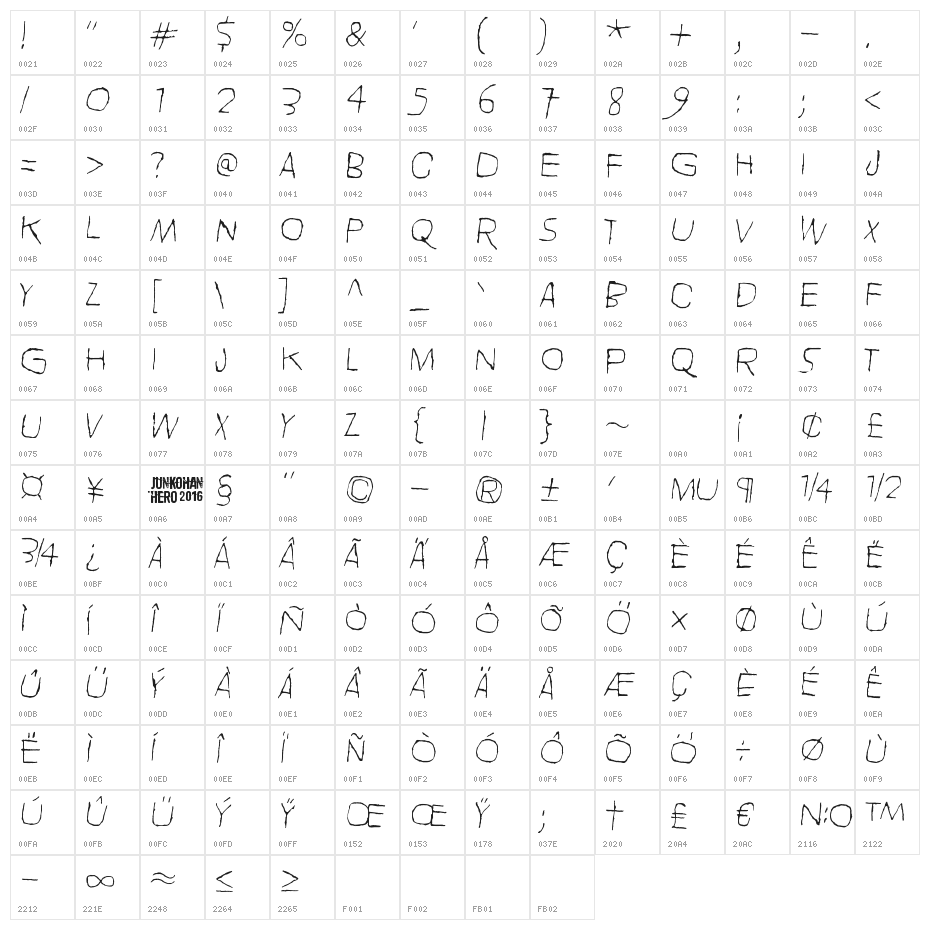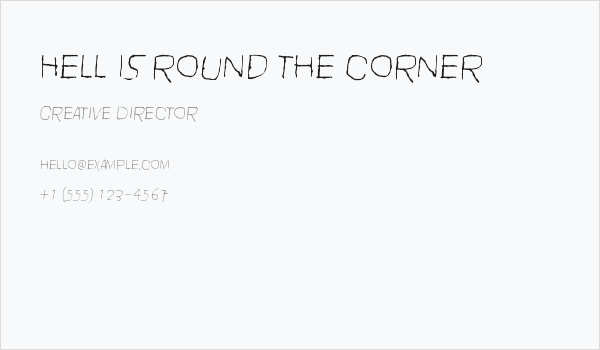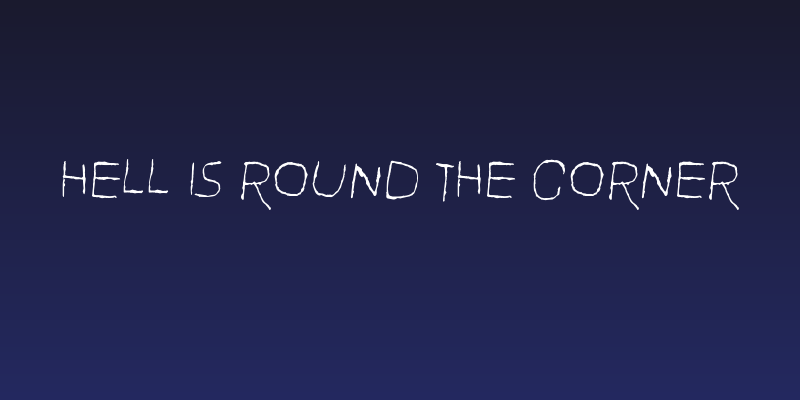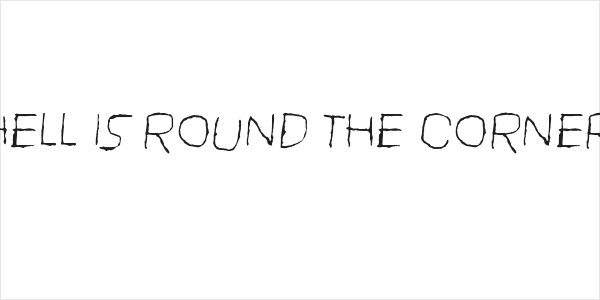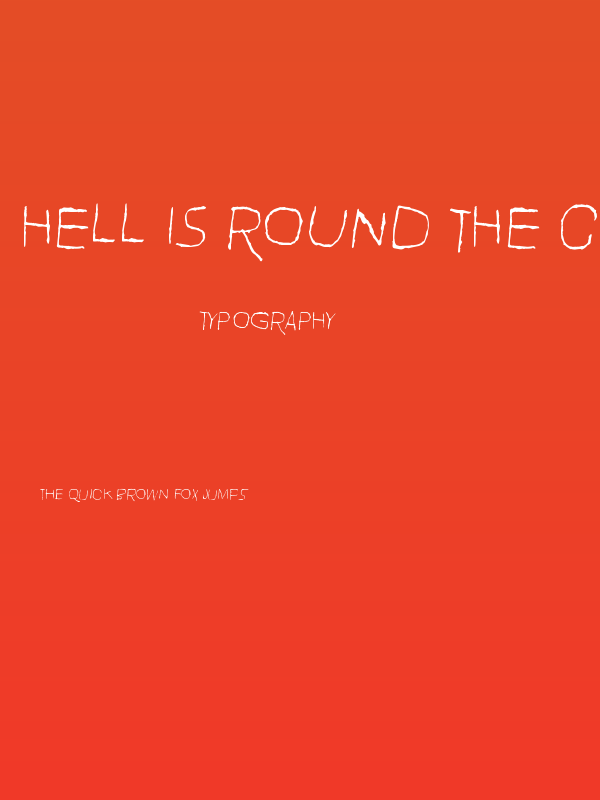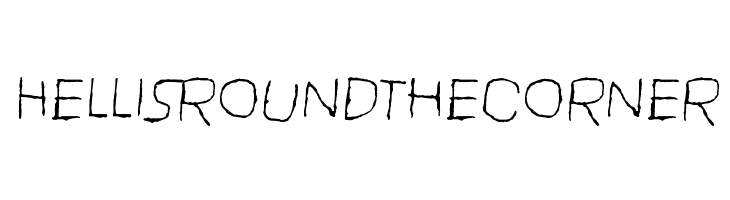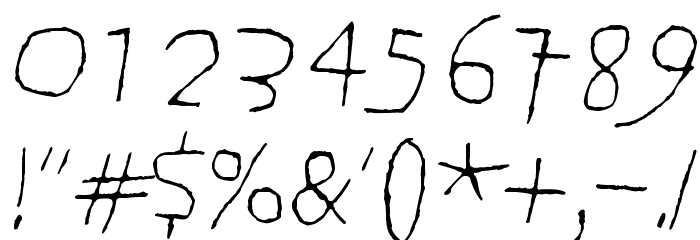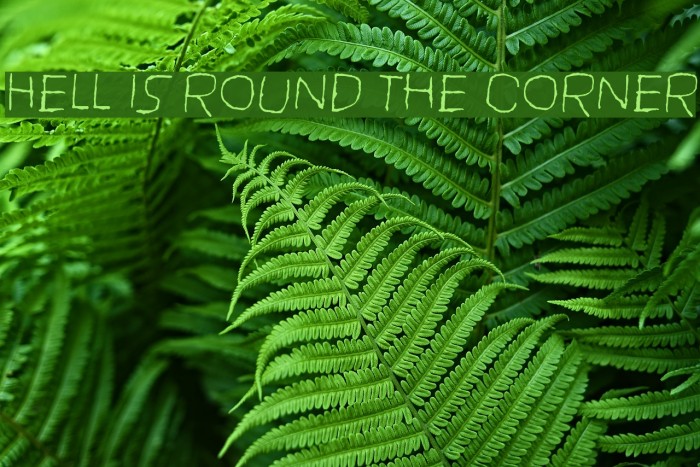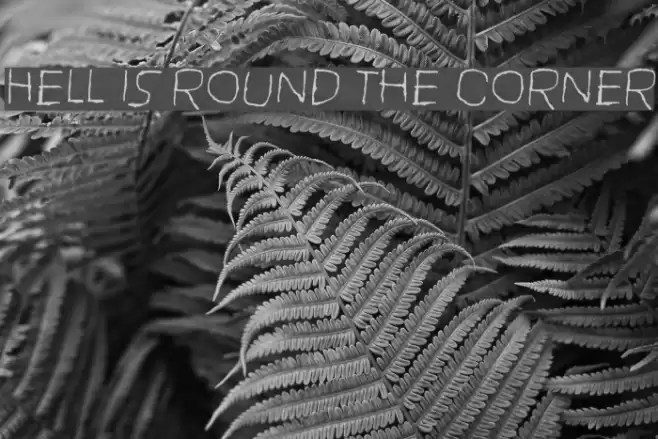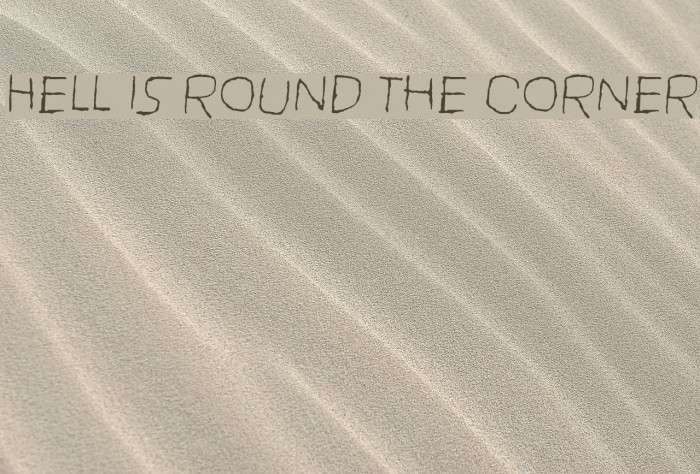
Hell is round the corner Font
This font features a distinctive, hand-drawn style that exudes a raw and organic feel. The characters are irregular and slightly jagged, giving them a unique, edgy appearance. The uppercase and lowercase letters maintain a consistent style, with a slight slant that adds to the dynamic nature of the font. The numbers and special characters follow the same aesthetic, ensuring a cohesive look across all glyphs. The strokes are uneven, contributing to a sense of authenticity and character. This font is ideal for projects that require a personal touch or a grunge-inspired theme.
| Overall Style | Edgy, Raw, Organic |
| Use Case | Logos, Posters, Artistic Projects |
| Proposed Projects | Ideal for album covers, posters, street art designs, and any project needing a raw, personal touch. |